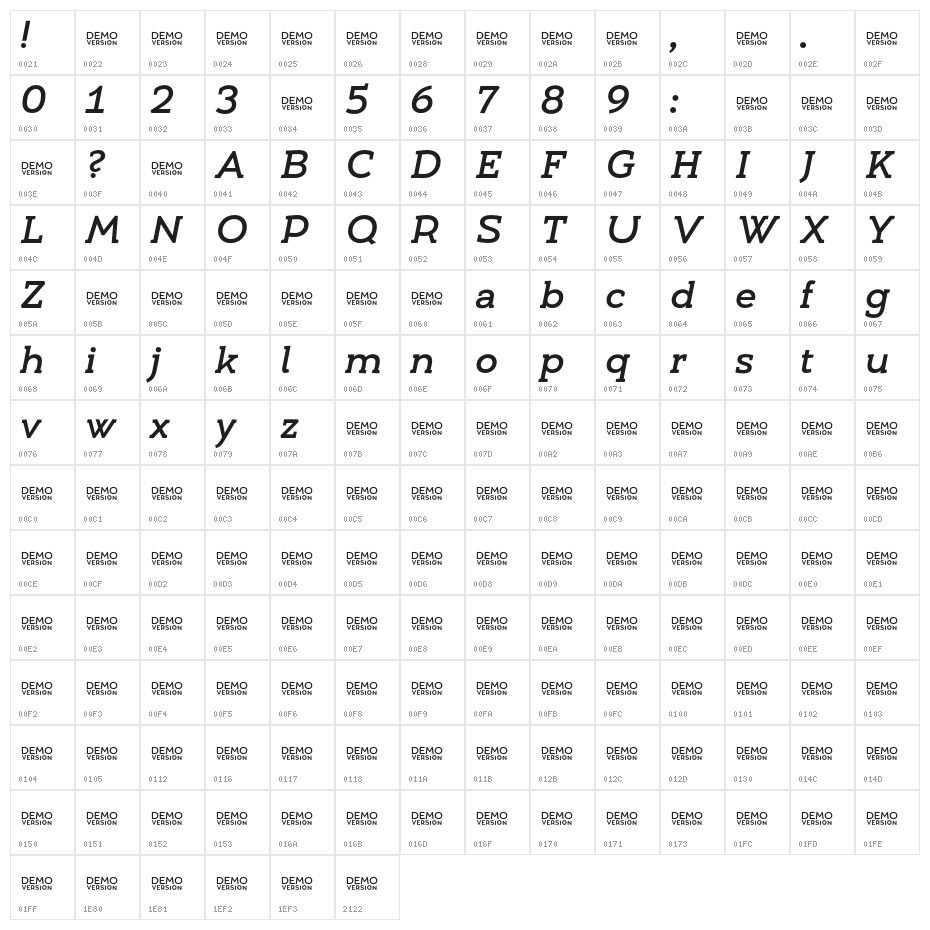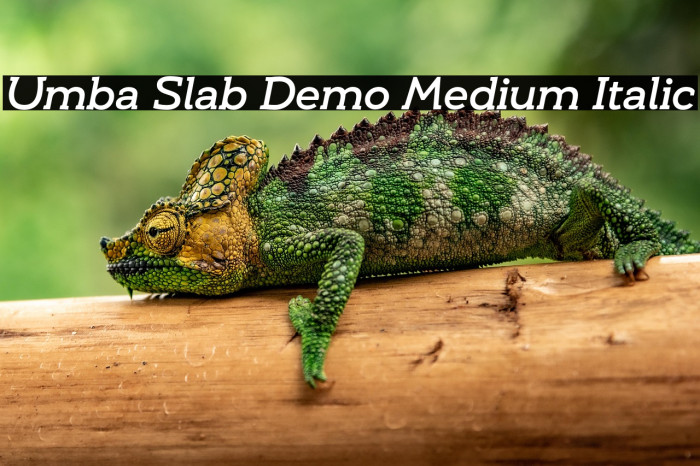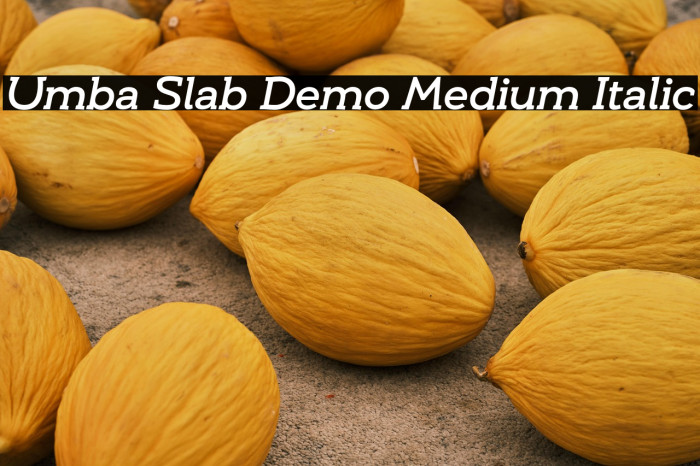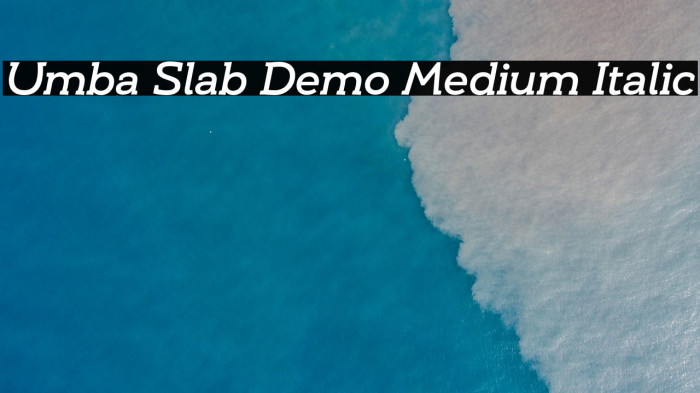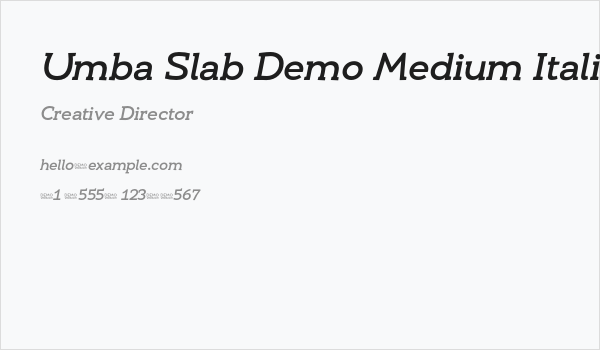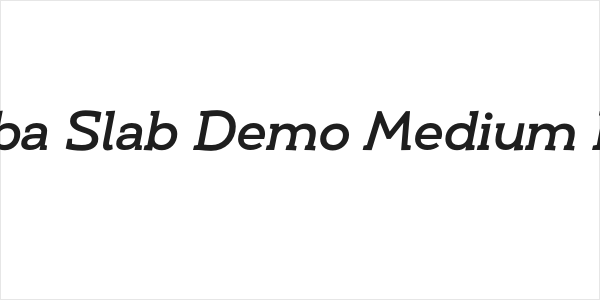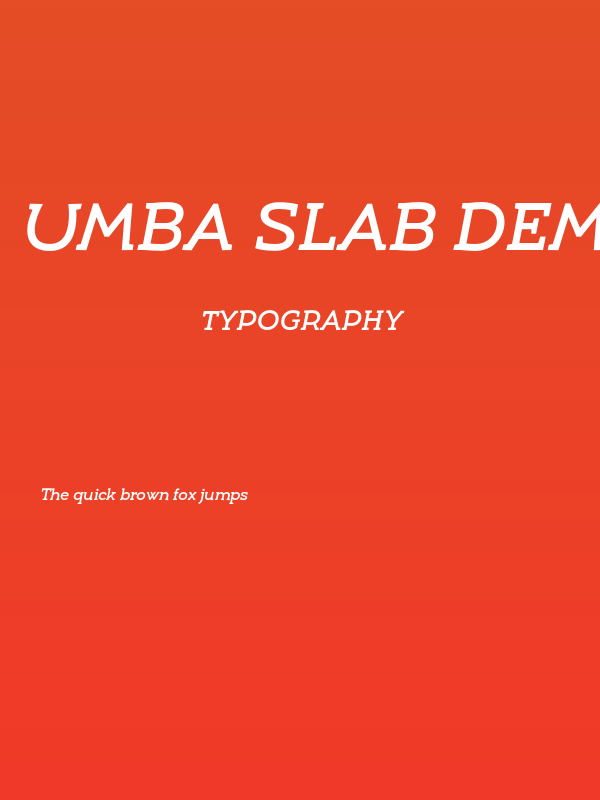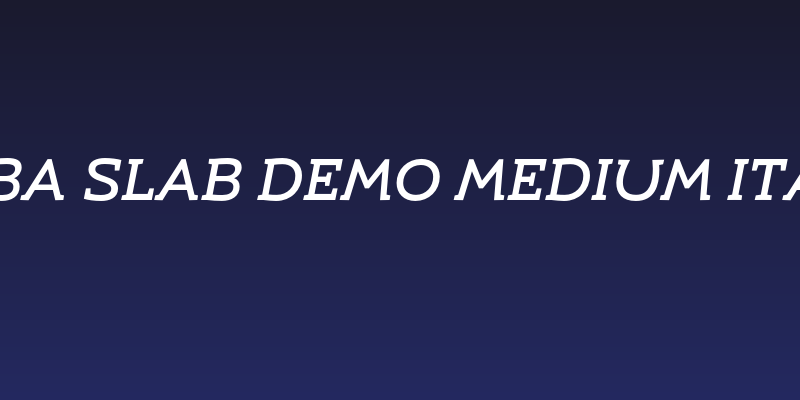
Umba Slab Demo Medium Italic Font
Umba Slab Demo Medium Italic Description
This font exhibits a modern and sophisticated style with a distinct italic slant, giving it a dynamic and elegant appearance. The characters are well-balanced with a medium weight, providing a sense of stability and readability. The slab serif design adds a touch of boldness, making it suitable for both formal and creative applications. The uppercase letters are strong and commanding, while the lowercase letters maintain a smooth and flowing form. The numerals are clear and consistent, ensuring easy readability. The special characters are designed with the same attention to detail, complementing the overall aesthetic of the font.